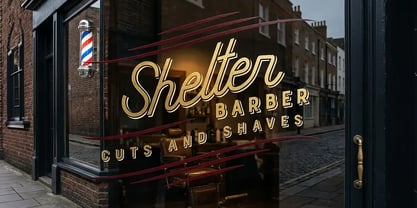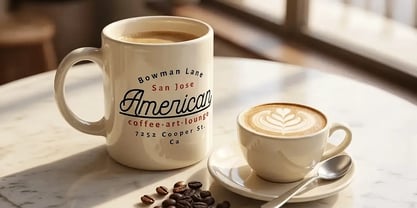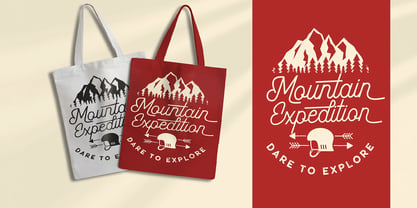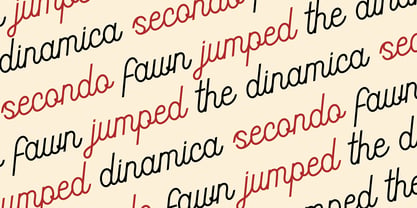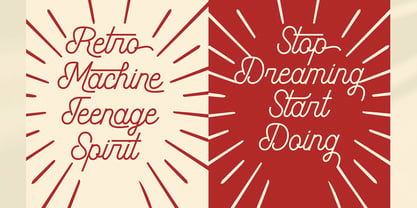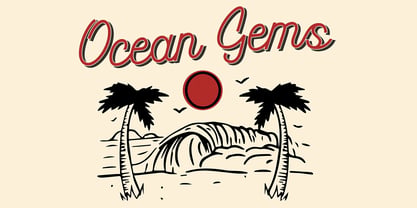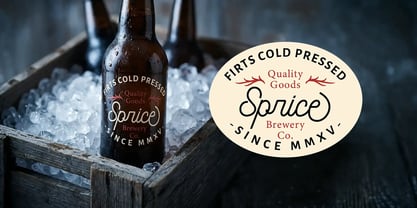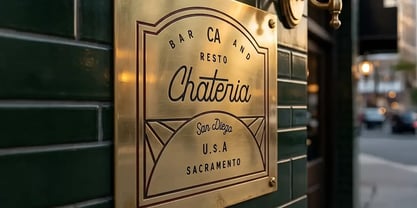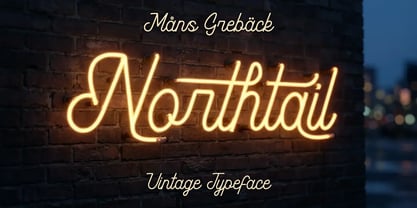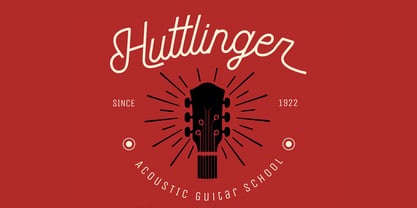
Northtail
Northtail is a monoline retro script with long, looping connections.
The letters are drawn in a single even weight and flow into one another with relaxed, sweeping joins and extended tails that reach back under the word. It has the easy hand of a sign painter and a warm vintage character, equally at home bent into a glowing neon tube or brushed across a shopfront window. Imagine it humming in amber light above a late-night barber shop on a quiet brick street.
The font is built with advanced functionality and guaranteed top-notch quality, containing stylistic and contextual alternates, ligatures and more automatic and manual features; all to give you full control and customizability.
It has extensive lingual support, covering all Latin-based languages, from North Europa to South Africa, from America to South-East Asia. It contains all characters and symbols you'll ever need, including all punctuation and numbers.